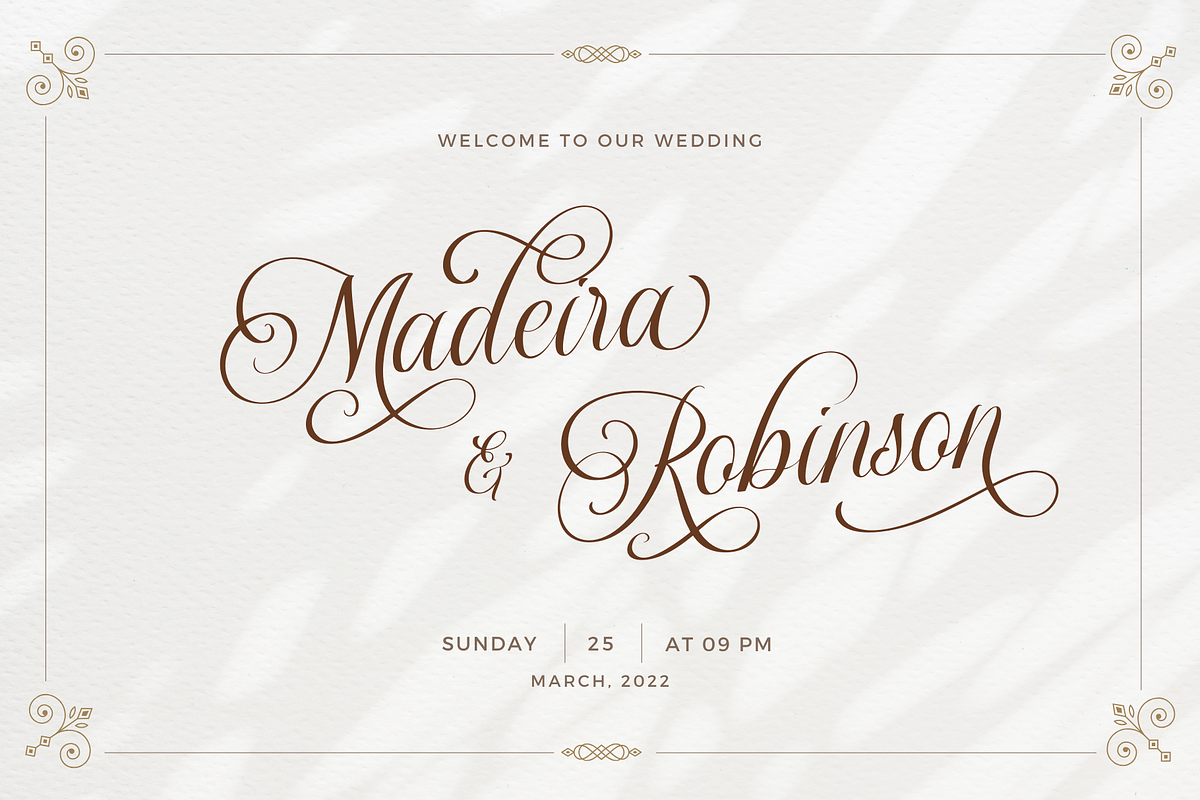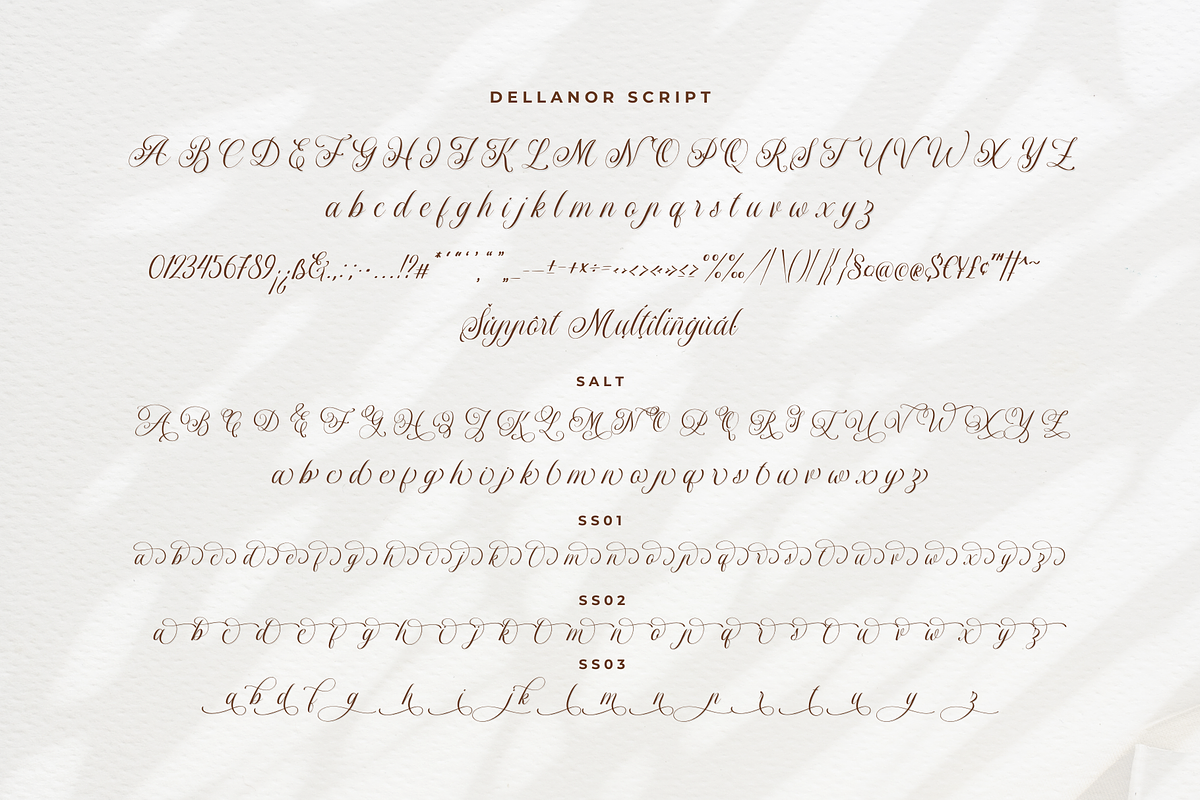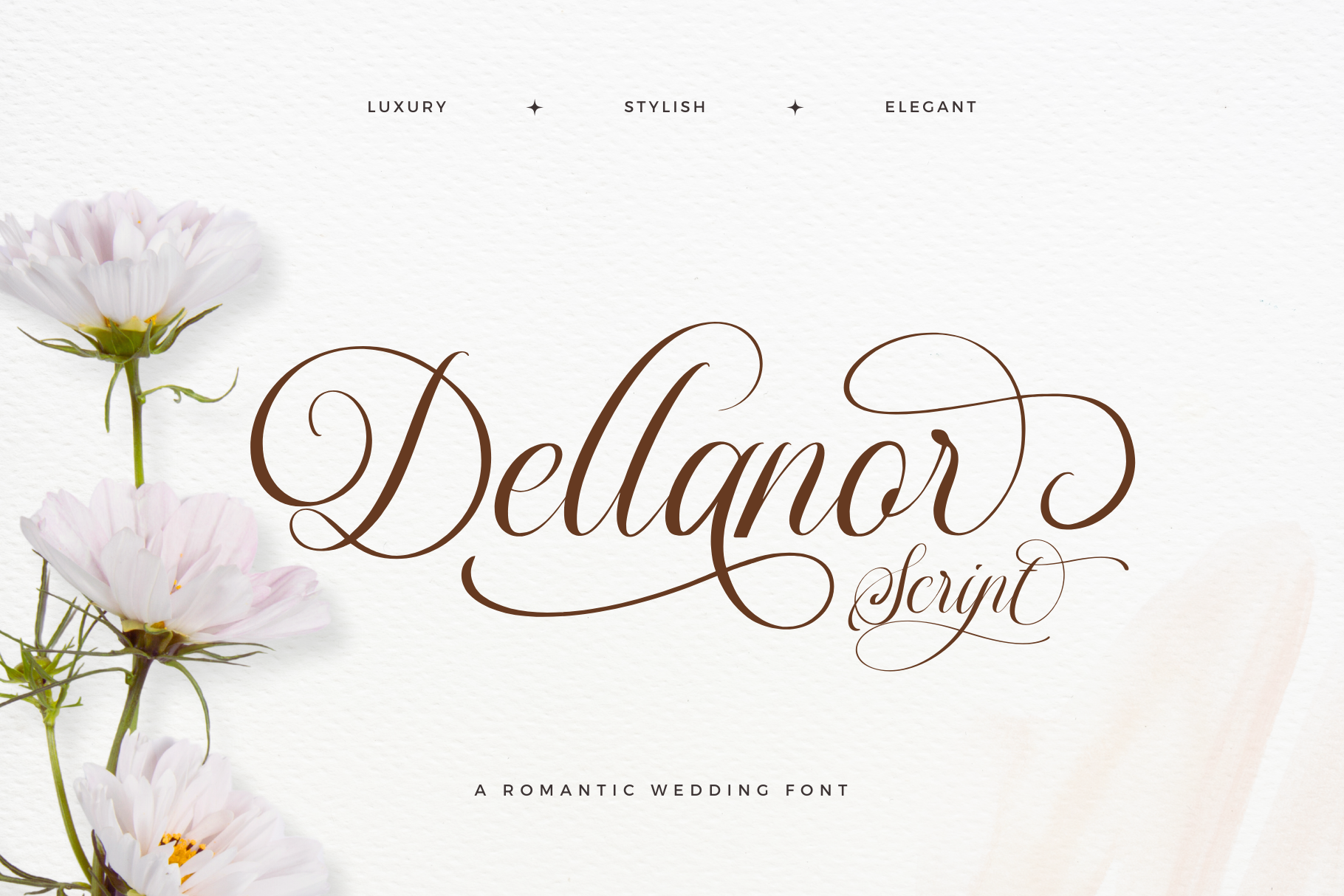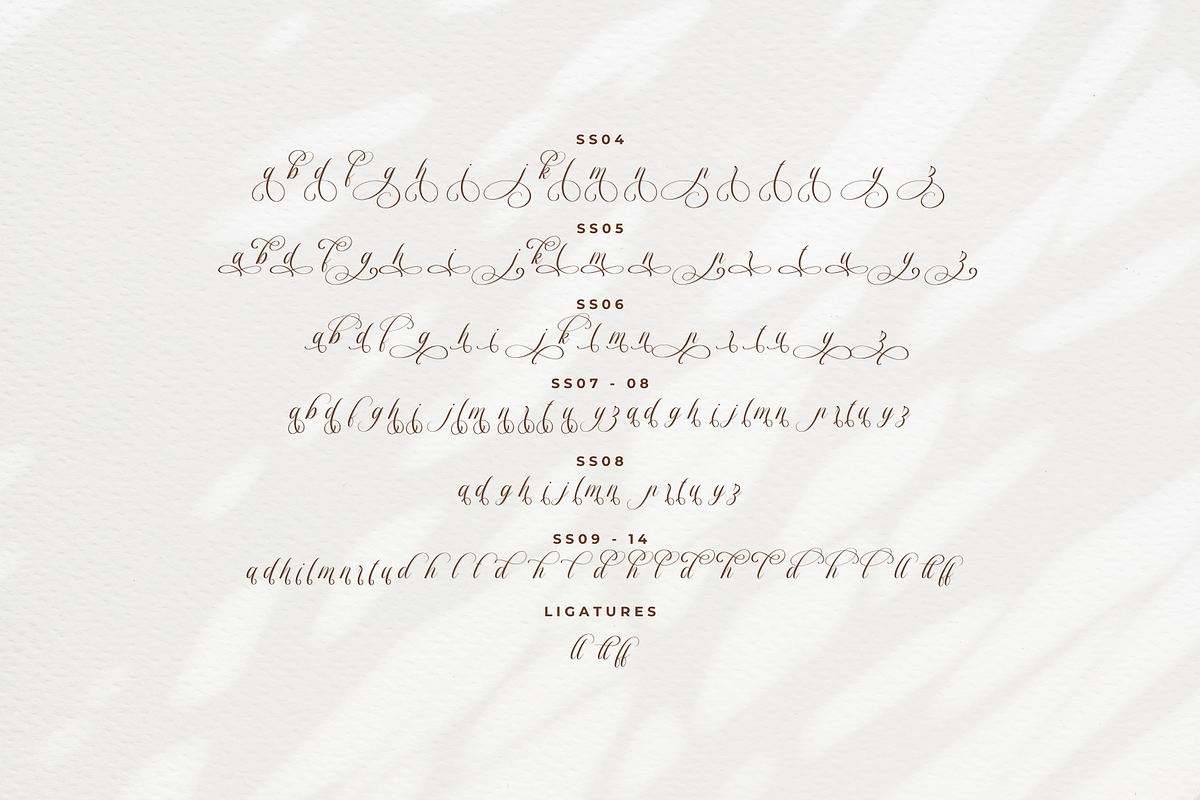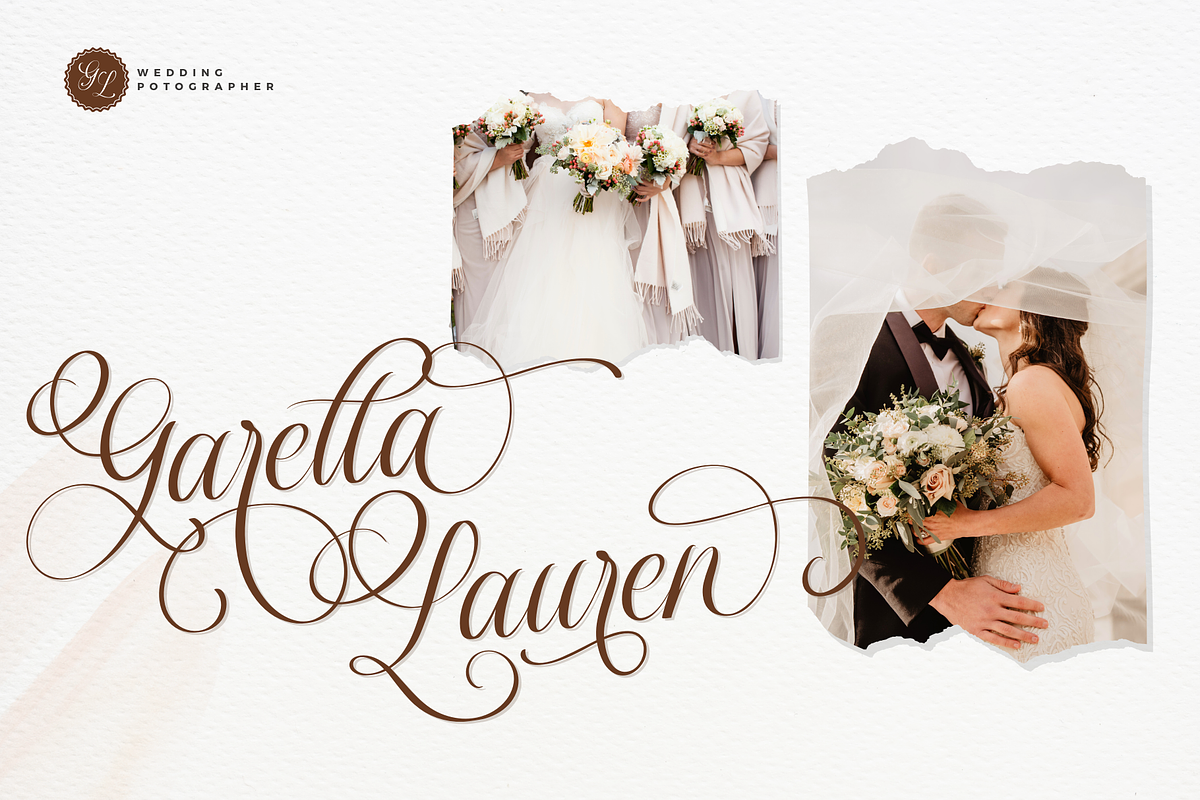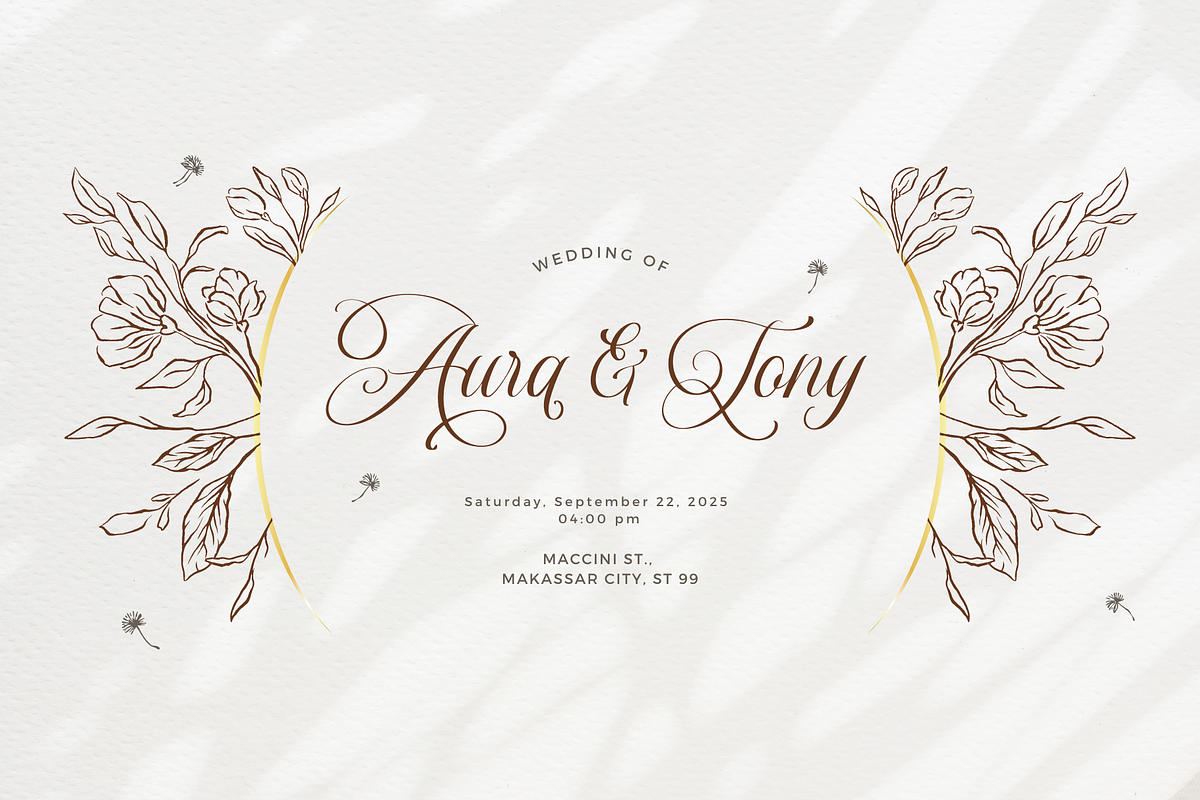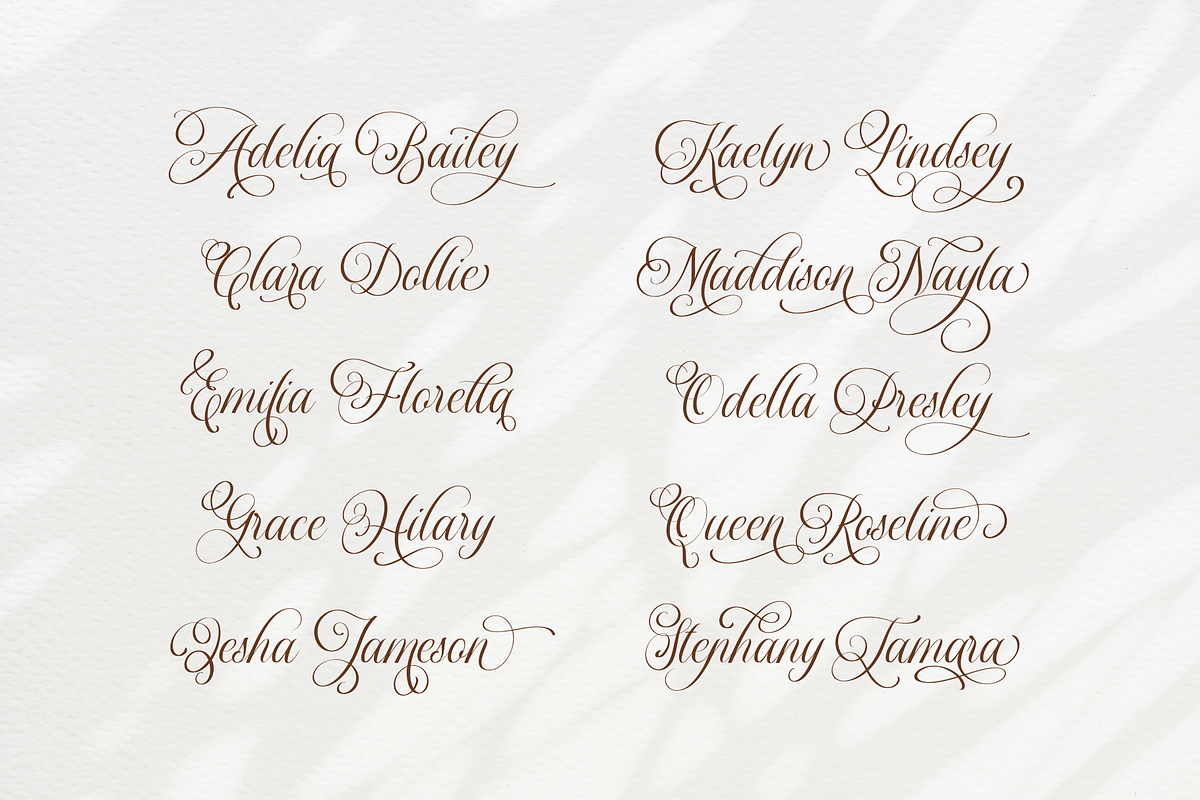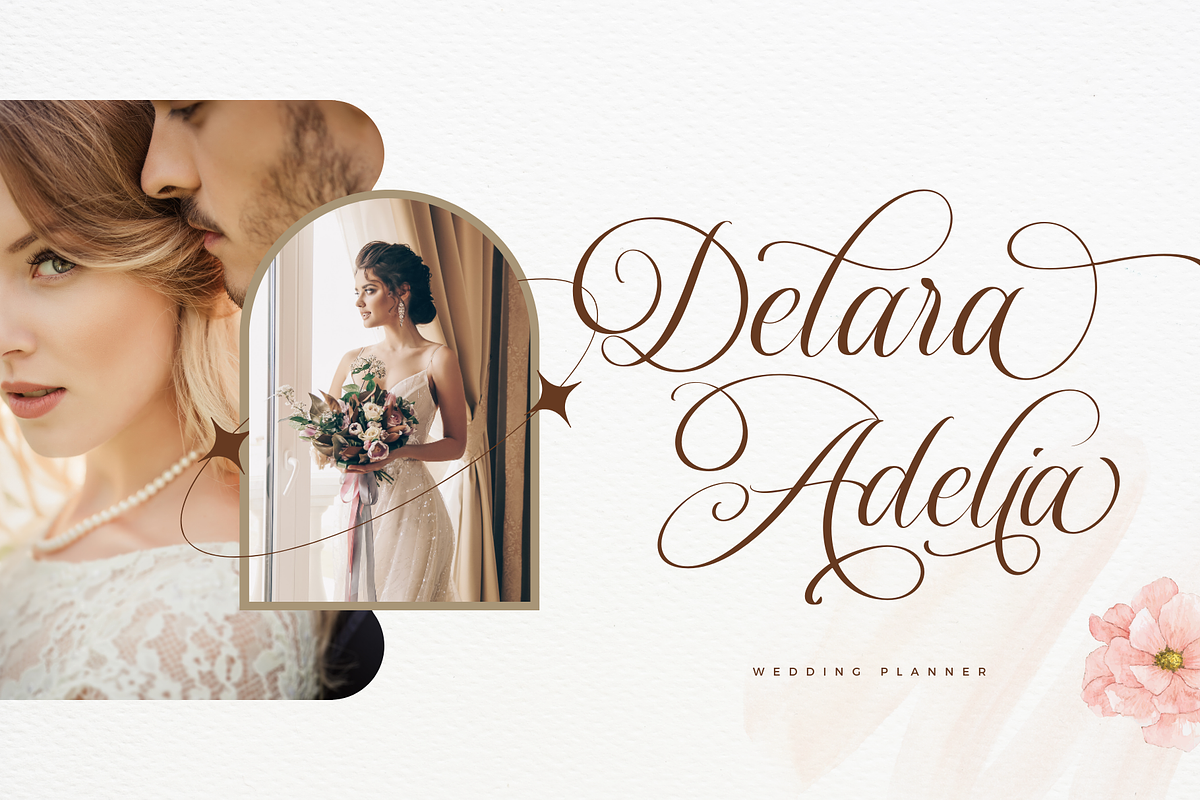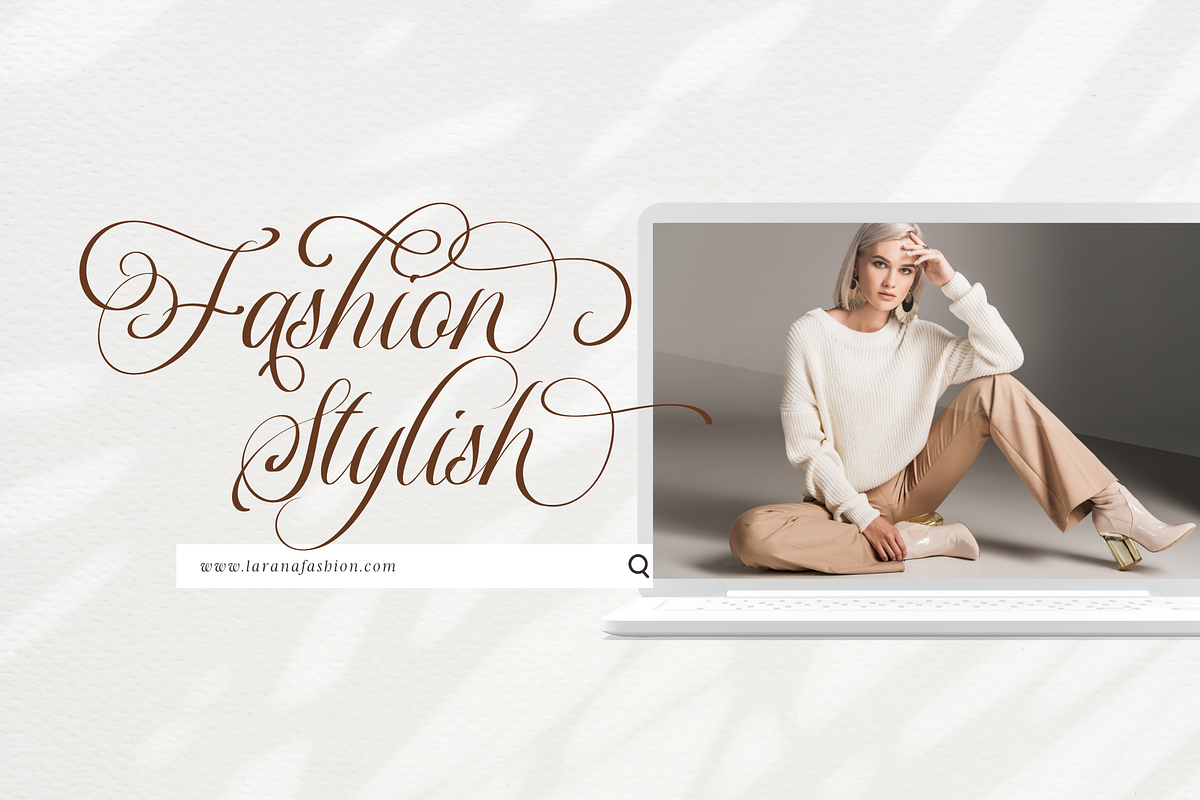
Dellanor Script - A Wedding Font
"Dellanor Script" is a romantic wedding font with luxury, stylish, and elegant characteristics. Its ornate and decorative style makes it a great choice for wedding invitation design, event signs, and other design projects that require a touch of sophistication and romance.
Many alternative options can provide a variety of looks for each letter, allowing you to customize and personalize the text to achieve the desired look.
- A set of uppercase and lowercase glyphs
- Number, symbol, and punctuation
- Alternates and ligatures